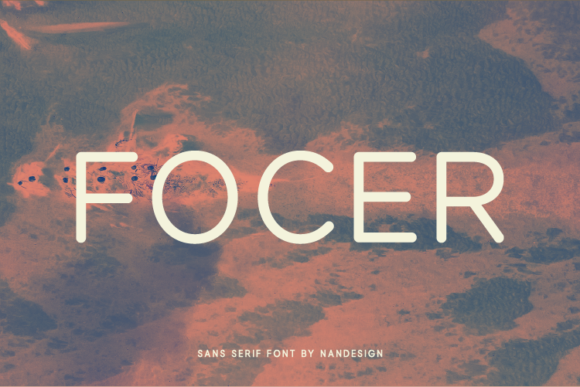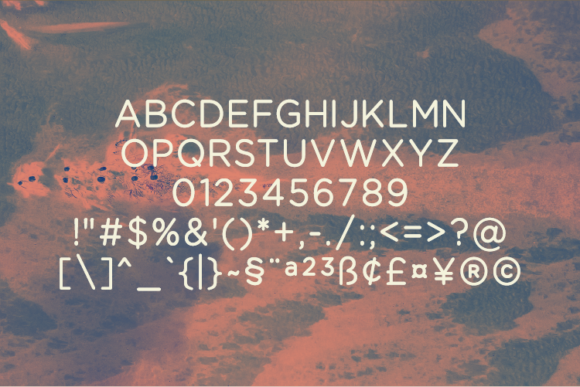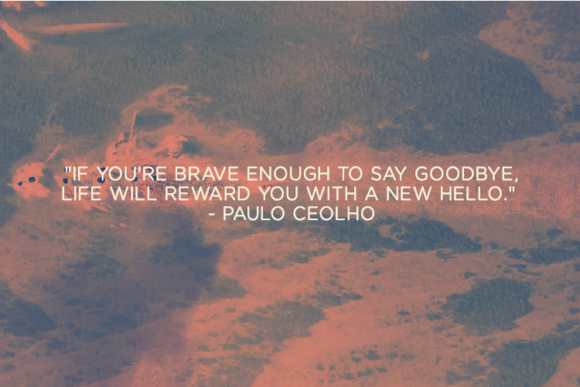
Have you ever stared at a blank page, struggling to find the perfect font to bring your design to life? I know I have. But what if I told you that the perfect font is just a click away? Introducing Focer Font, a simple and clean sans serif font that’s about to become your new go-to.
Focer Font is more than just a font – it’s a tool to help you create gorgeous invitations, stunning social media posts, and adorable greeting cards. Its neat feel and versatility make it a valuable addition to any designer’s toolkit. Whether you’re a seasoned pro or a design newbie, Focer Font is sure to inspire your next creative project.
Focer Font Key Features
- Font Family: Focer Font offers 6 different font styles, including Regular, Italic, Bold, Bold Italic, Condensed, and Extended.
- Unique Characteristic: Focer Font features a unique blend of modern and minimalist design elements, making it perfect for contemporary branding and design projects.
Focer Font Review
Overall, I think Focer Font is a solid choice for body text, ✨ especially when used for digital content. The font’s clean and modern design makes it easy to read on screens, which is perfect for articles, blogs, and social media posts.
- ✨ Legibility: Focer Font is highly legible, making it perfect for long-form content.
- ✨ Versatility: The font comes in multiple weights and styles, allowing designers to create a consistent look across different platforms.
- ✨ Cross-browser compatibility: Focer Font works well across different browsers and devices, ensuring a seamless reading experience.
However, I do have a few concerns:
- ⚠️ Limited typographic options: While Focer Font has multiple weights, it lacks some advanced typographic features like ligatures and swashes.
- ⚠️ Not ideal for headlines: While the font is great for body text, it may not be the best choice for headlines due to its lack of boldness and personality.
Overall, I think Focer Font is a great choice for digital content, but it may not be the best option for more creative or design-focused projects.
Focer Font is ideal for creative projects, such as:
- Designing posters and flyers
- Creating business cards and brochures
- Developing presentations and reports
- Typography projects and creative writing
Alternatives to Focer Font for Designers
Montserrat is a sans-serif typeface designed by Julieta Ulanovsky. It’s a great alternative to Focer Font for designs that require a clean and modern look. Montserrat is ideal for digital products, such as mobile apps and websites. It’s highly legible and versatile, making it suitable for various font sizes and styles.
Montserrat is more geometric and modern compared to Focer Font, which has a more rounded and friendly feel. Montserrat is a better choice for designs that require a strong and sleek aesthetic.
Open Sans is a popular sans-serif typeface designed by Steve Matteson. It’s an excellent alternative to Focer Font for designs that require a friendly and approachable tone. Open Sans is ideal for documents, websites, and other digital content that needs to be easy to read. It’s highly legible and works well in a variety of font sizes and styles.
Open Sans is more rounded and friendly compared to Focer Font, which has a more modern and sleek feel. Open Sans is a better choice for designs that require a warm and inviting aesthetic.
Lato is a sans-serif typeface designed by Łukasz Dziedzic. It’s a great alternative to Focer Font for designs that require a clean and sophisticated look. Lato is ideal for digital products, such as websites and mobile apps, as well as for print materials, such as brochures and business cards. It’s highly legible and versatile, making it suitable for various font sizes and styles.